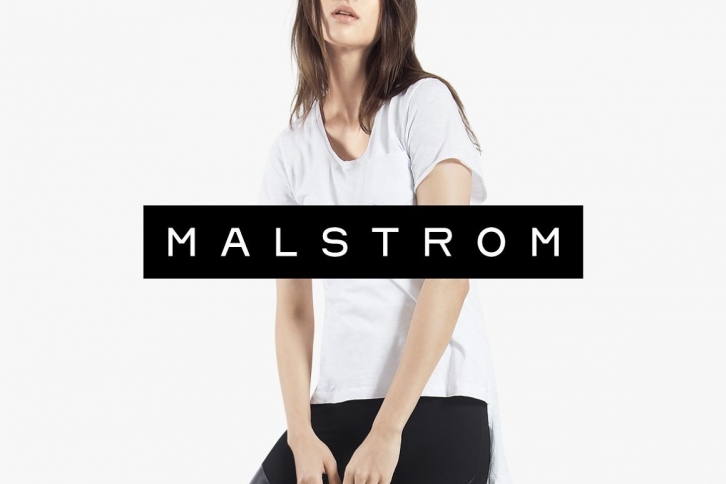
Malstrom is a clean and modern looking display font. Add this minimalist and techno styled font to your web designs, logos or pretty much anything that requires a smart, cool touch.